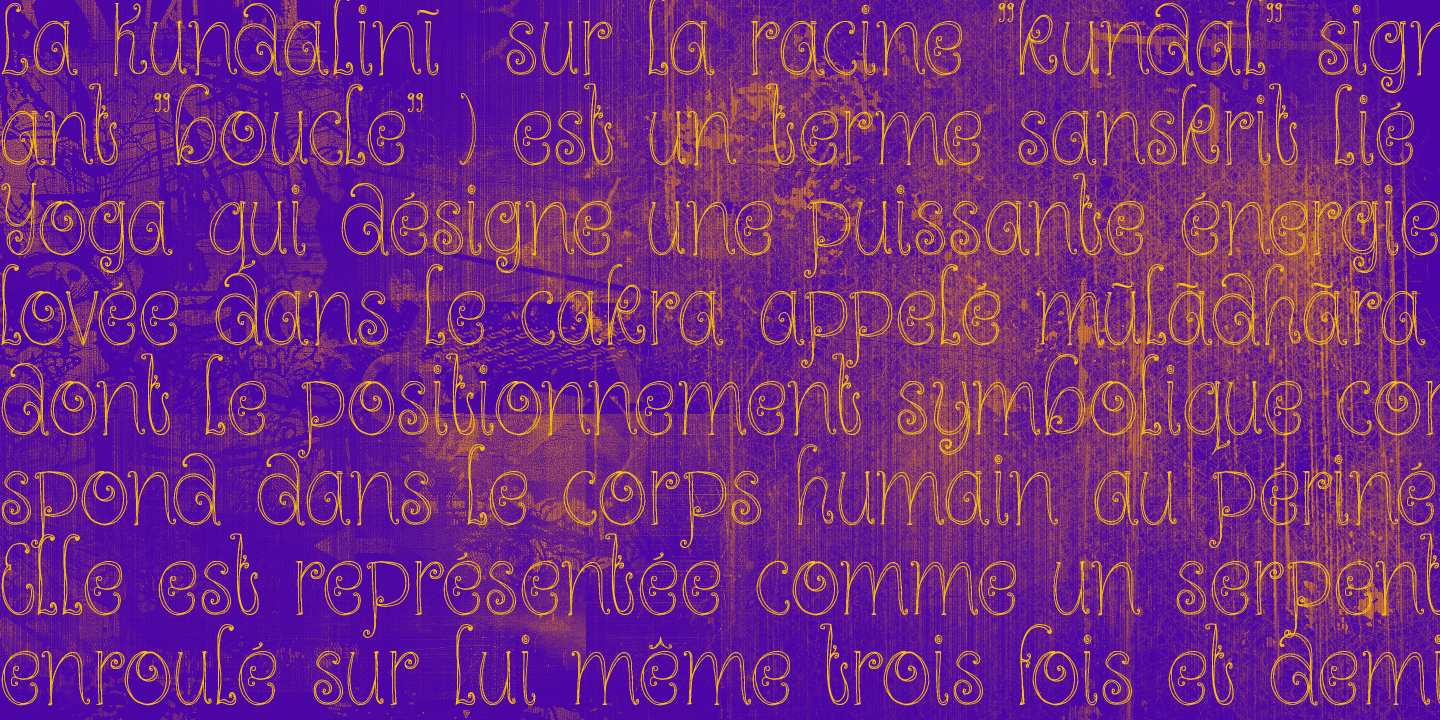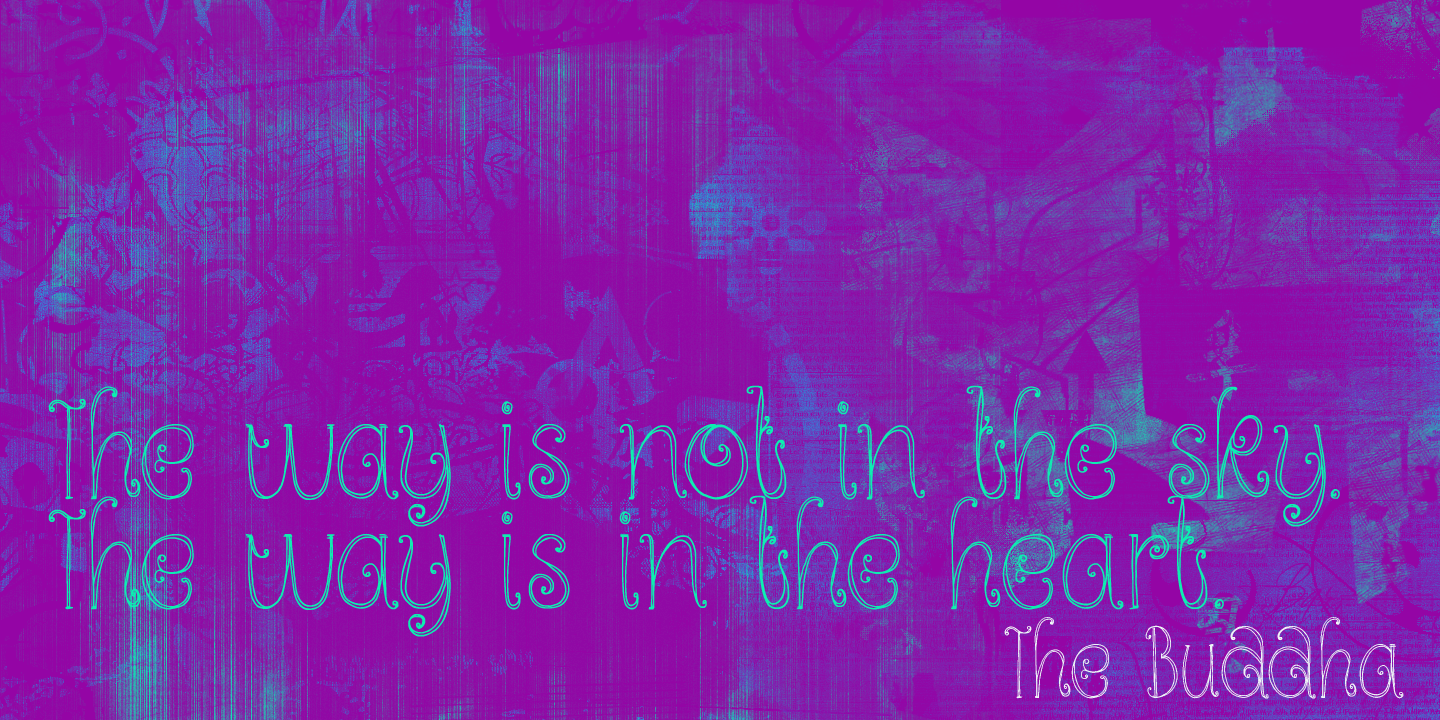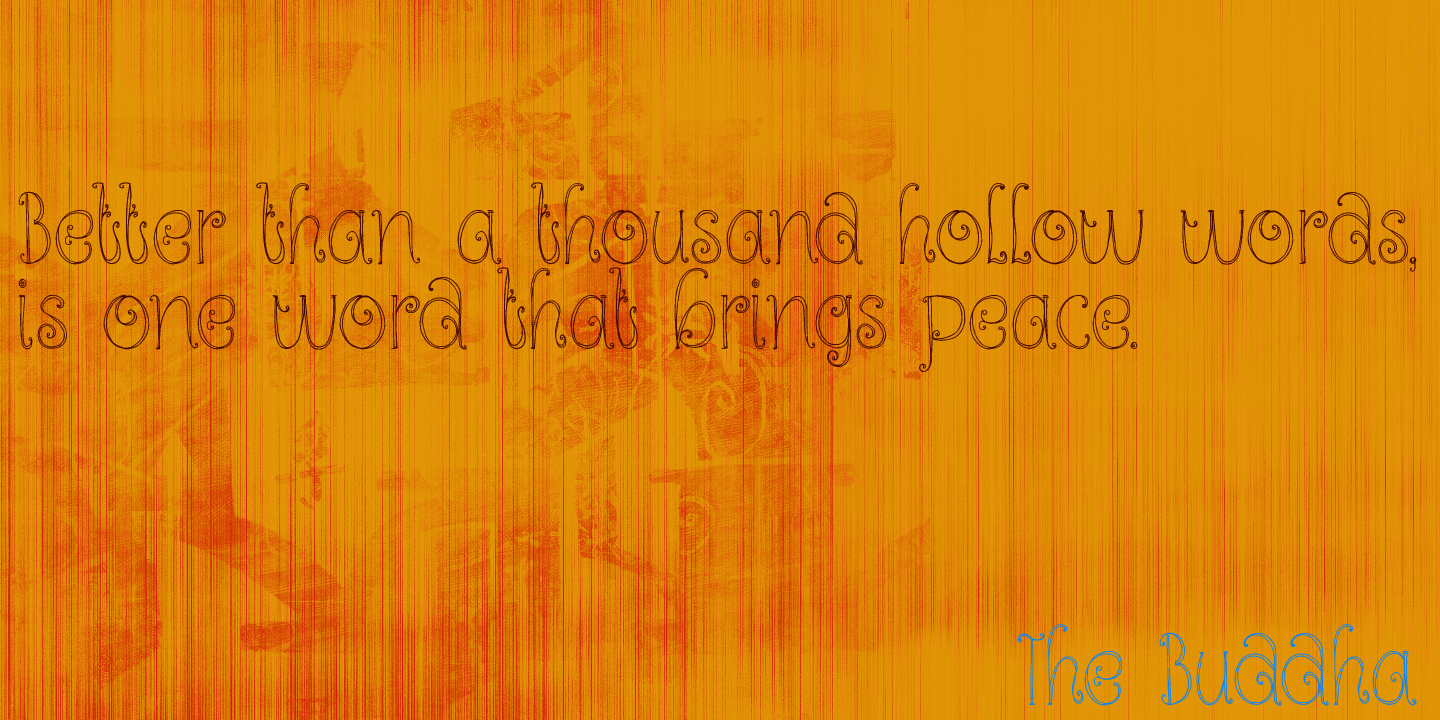
Kundalini
Kundalini means ?coiled?. In yoga it is used to describe an energy or force which lies at the base of the spine and, when awakened, results in deep meditation or even enlightenment. Aaahhh?
Now zoom back to earth: Kundalini font is a great curly typeface with a bit of rough here and there. It is feminine, happy, kind of esoteric, unusual but very useful.
Kundalini will even enlighten those who speak tongues other than English, as it comes with Nirvanic language support.